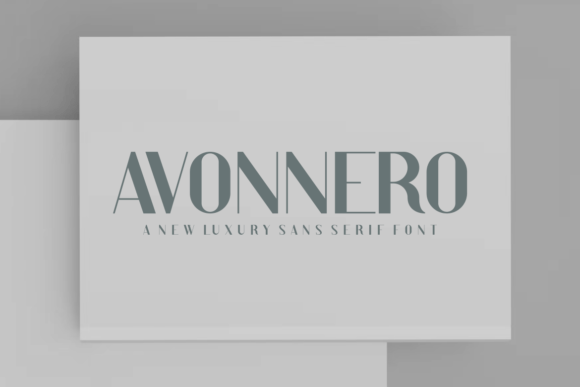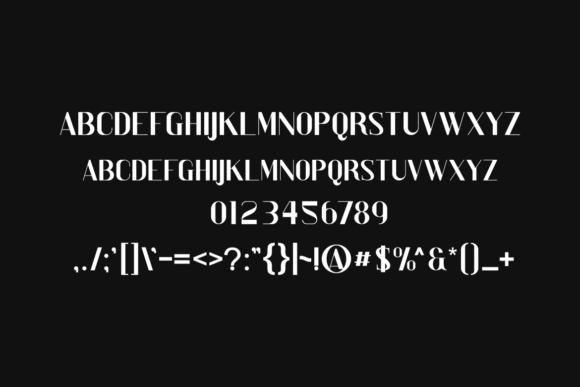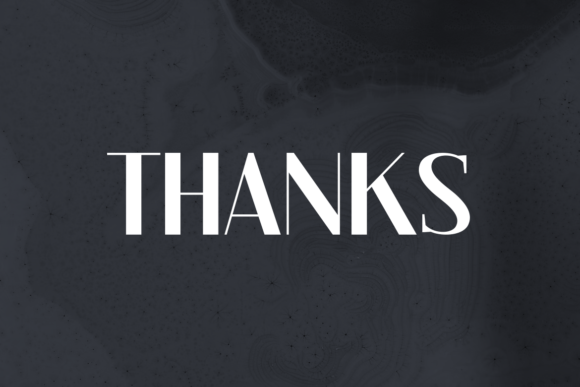
Introducing Avonnero Font: Elevate Your Designs with Modern Luxury
In the world of typography, fonts play a crucial role in conveying the tone and aesthetic of a design. For designers and crafters seeking to create elegant and sophisticated visuals, Avonnero Font is an exceptional choice. This modern luxury font boasts clean and stylish letters, making it perfect for high-end branding, magazines, sleek logos, and more.
What is Avonnero Font?
Avonnero is a sans serif typeface, characterized by its absence of little lines at the ends of the letters. This design feature gives Avonnero a clean and minimalist look, allowing it to adapt seamlessly to various design applications. The font’s sleek and modern appearance makes it an excellent option for designers aiming to create a luxurious feel in their work.
Key Features of Avonnero Font
- Modern Luxury Aesthetic: Avonnero’s design embodies a sense of modern luxury, making it suitable for high-end branding and sophisticated designs.
- Clean and Stylish Letters: The font’s clean and stylish letters ensure that any text stands out beautifully, adding an air of elegance to the design.
- Sans Serif Typeface: As a sans serif font, Avonnero lacks the little lines at the ends of the letters, giving it a sleek and contemporary appearance.
- Versatility: Avonnero is perfect for a wide range of design applications, including magazines, sleek logos, and high-end branding.
Why Choose Avonnero Font?
There are several reasons why designers and crafters should consider Avonnero Font for their projects:
- Sophisticated Look: Avonnero’s sophisticated appearance makes any text stand out beautifully, adding a touch of luxury to the design.
- Elegant Designs: The font is perfect for creating elegant designs that require a high-end feel, such as luxury branding and upscale magazines.
- Easy to Read: Avonnero’s clean and stylish letters ensure that the text is easy to read, making it suitable for body text and headings.
- Unique and Distinctive: Avonnero’s modern luxury aesthetic sets it apart from other fonts, allowing designers to create unique and distinctive designs.
Design Applications for Avonnero Font
Avonnero Font is versatile and can be used in various design applications, including:
- High-End Branding: Avonnero is perfect for creating luxurious brand identities that exude sophistication and elegance.
- Magazines and Publications: The font’s clean and stylish letters make it suitable for magazines, newspapers, and other publications that require a high-end feel.
- Sleek Logos: Avonnero’s modern luxury aesthetic makes it an excellent choice for creating sleek and sophisticated logos.
- Packaging Design: The font can be used in packaging design to create luxurious and eye-catching packaging that stands out on store shelves.
Tips for Using Avonnero Font
To get the most out of Avonnero Font, consider the following tips:
- Use it as a Headline Font: Avonnero’s modern luxury aesthetic makes it perfect for use as a headline font, adding a touch of sophistication to any design.
- Pair it with Other Fonts: Experiment with pairing Avonnero with other fonts to create a unique and visually appealing design.
- Adjust the Font Size: Adjust the font size to create visual hierarchy and emphasize important information.
- Experiment with Colors: Experiment with different colors to find the perfect combination that complements the design and enhances the overall aesthetic.
Avonnero Font is an exceptional choice for designers and crafters seeking to create elegant and sophisticated designs. Its modern luxury aesthetic, clean and stylish letters, and versatility make it perfect for high-end branding, magazines, sleek logos, and more. By incorporating Avonnero Font into your design projects, you can elevate your work and create visually stunning designs that stand out beautifully.